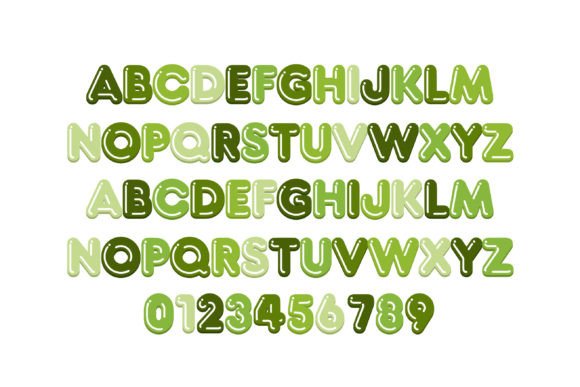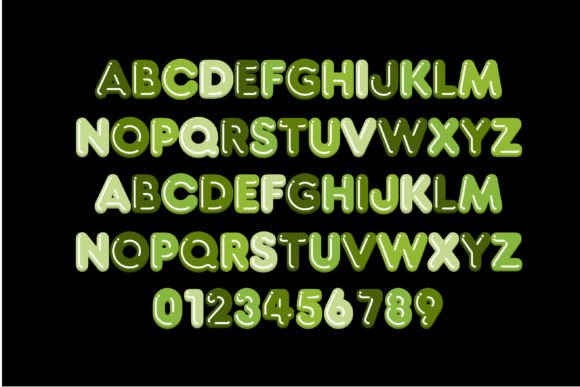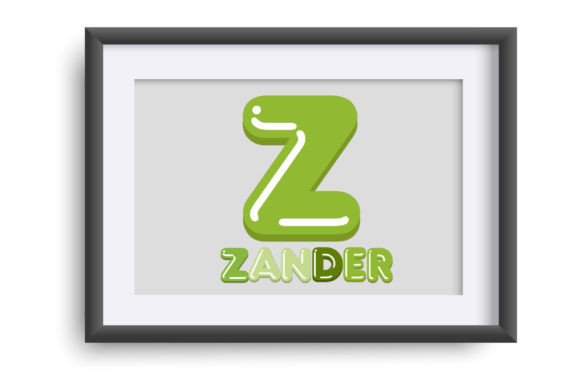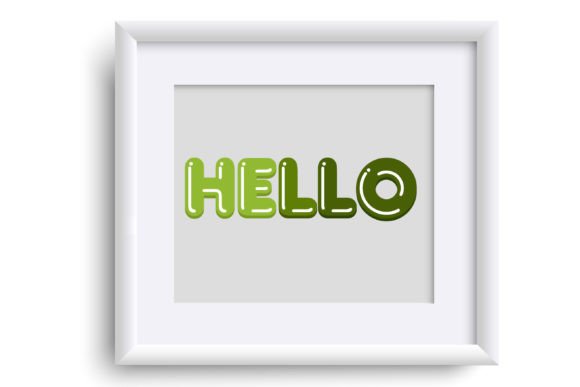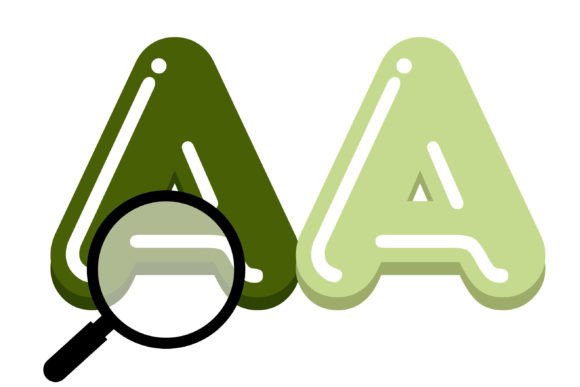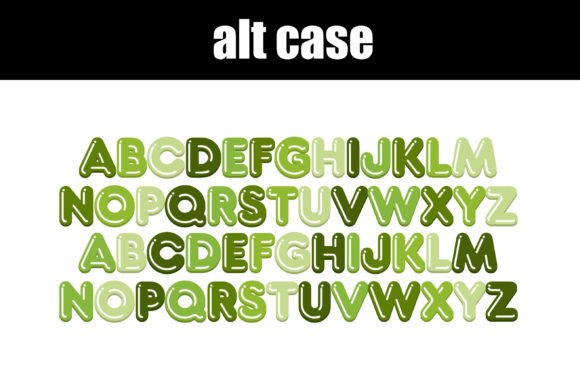
Bubbly Bean Font: The Perfect Addition to Your St. Patrick’s Day Projects
Are you looking for a font that embodies the spirit of St. Patrick’s Day? Look no further than the Bubbly Bean Font! This modern and bubbly font is designed to add a fun and festive touch to any project, making it perfect for designers and crafters alike. In this article, we’ll take a closer look at the Bubbly Bean Font, its features, and how you can use it to elevate your designs.
A Font that Stands Out from the Crowd
The Bubbly Bean Font is a unique and playful font that is sure to grab attention. Its attractive style and shapes make it stand out from the crowd, adding a touch of whimsy and fun to any project. Whether you’re designing a St. Patrick’s Day card, a festive banner, or a fun craft project, this font is sure to make your design pop.
One of the best features of the Bubbly Bean Font is that it is PUA (Private Use Area) encoded. This means that you can access all of the glyphs and swashes with ease, giving you even more creative freedom to customize your designs. With PUA encoding, you can easily access the font’s special characters, such as ligatures, ornaments, and other decorative elements, making it easy to add a personal touch to your projects.
The Bubbly Bean Font is perfect for designers and crafters who want to add a touch of fun and festivity to their projects. Whether you’re creating digital designs or handmade crafts, this font is sure to inspire your creativity. With its playful and attractive style, you can use the Bubbly Bean Font to create a wide range of projects, including:
- St. Patrick’s Day cards and invitations
- Festive banners and signs
- Fun craft projects, such as DIY decorations and gifts
- Digital designs, such as social media graphics and blog posts
Tips for Using the Bubbly Bean Font
Here are a few tips for using the Bubbly Bean Font in your designs:
- Experiment with different font sizes and colors to add visual interest to your design
- Use the font’s glyphs and swashes to add decorative elements to your design
- Combine the Bubbly Bean Font with other fonts to create a unique and eye-catching design
- Use the font to create a cohesive look across multiple design elements, such as business cards and social media graphics
Get Creative with Bubbly Bean Font
The Bubbly Bean Font is a versatile font that can be used in a wide range of design projects. With its playful and attractive style, it’s the perfect addition to any St. Patrick’s Day project. So why not get creative and see what amazing designs you can come up with using the Bubbly Bean Font?
In conclusion, the Bubbly Bean Font is a modern and bubbly font that is perfect for designers and crafters who want to add a touch of fun and festivity to their projects. With its playful shapes, attractive style, and PUA encoding, this font is sure to inspire your creativity and take your designs to the next level. So why not give it a try and see what amazing designs you can create?